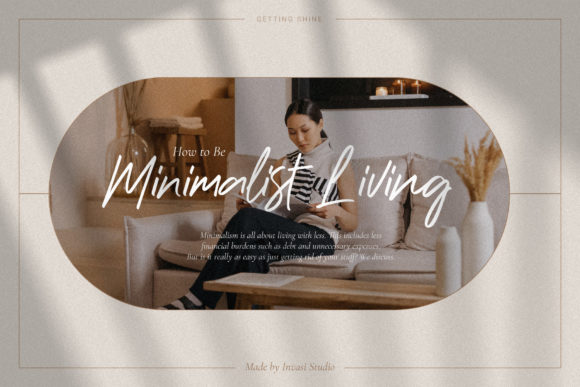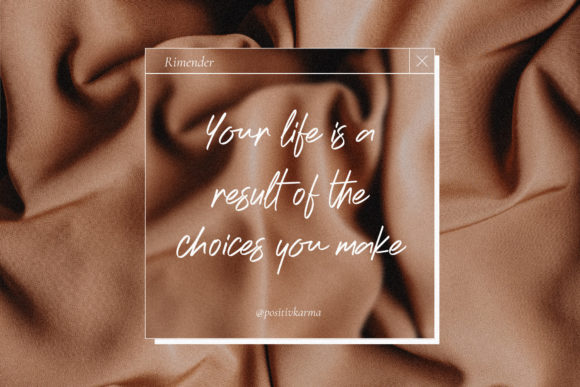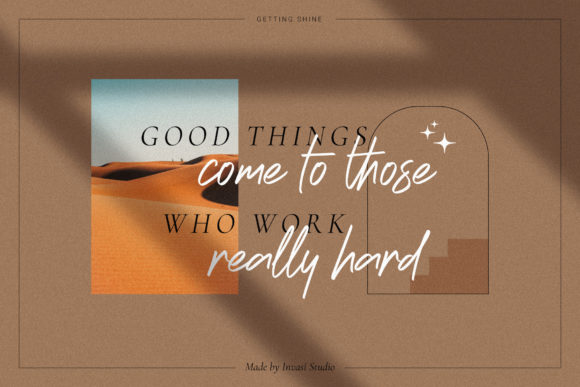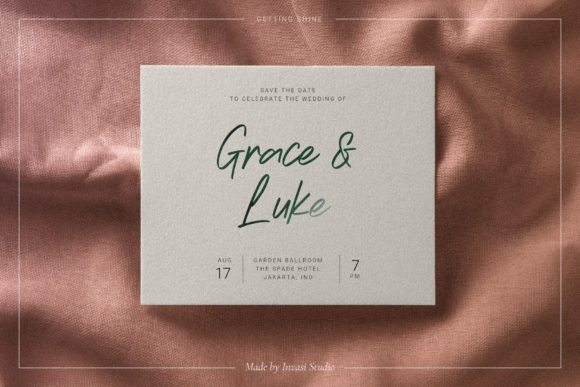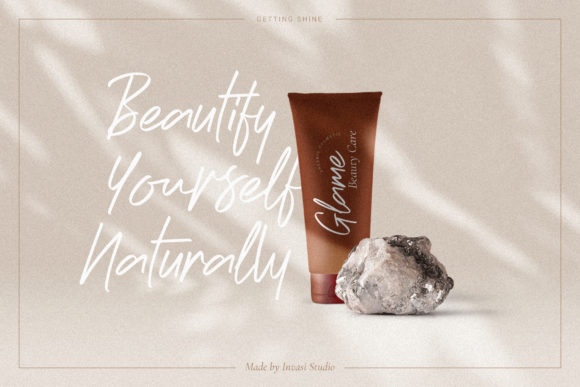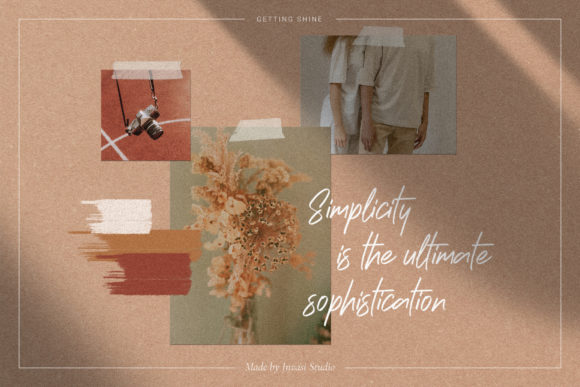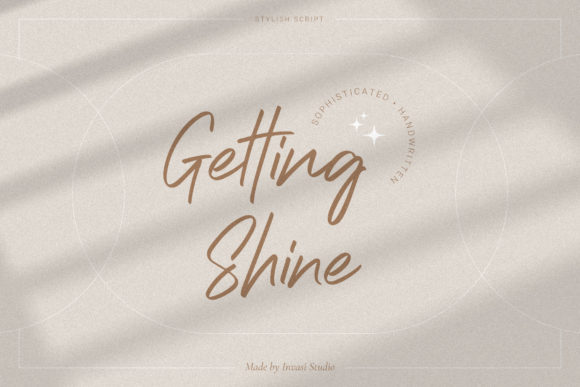
Getting Shine Font: The Ultimate Guide to Elevate Your Design
Are you on the hunt for a font that exudes elegance, sophistication, and a touch of playfulness? Look no further than the Getting Shine font! This relaxed, cursive, and adaptable handwritten font is perfect for designers and crafters looking to add a personal touch to their projects.
What is Getting Shine Font?
Getting Shine is a beautiful, one-of-a-kind font that boasts a unique blend of cursive and handwritten elements. Its relaxed and adaptable nature makes it an excellent choice for a wide range of applications, from logos and wedding invitations to headings, t-shirts, and more.
Key Features of Getting Shine Font
• Relaxed and Cursive: Getting Shine’s fluid, connected letters create a sense of movement and elegance, perfect for designs that require a touch of sophistication.
• Adaptable: This font is incredibly versatile, making it suitable for various design projects, from formal to informal.
• Handwritten: The font’s handwritten nature adds a personal touch, making it ideal for designs that require a human feel.
Uses of Getting Shine Font
The possibilities are endless when it comes to using Getting Shine font. Here are some popular applications:
• Logos: Create a lasting impression with a custom logo that showcases your brand’s personality.
• Wedding Invitations: Add a touch of romance and whimsy to your wedding stationery with Getting Shine font.
• Headings: Elevate your blog posts, articles, and website content with eye-catching headings.
• T-Shirts: Design custom apparel that stands out with Getting Shine font.
• Letterhead: Create professional-looking letterheads that reflect your brand’s identity.
• Signage: Make a statement with eye-catching signs that feature Getting Shine font.
• Labels: Design custom labels that add a personal touch to your products or packaging.
• News: Use Getting Shine font to create engaging headlines and articles.
• Posters: Create stunning posters that showcase your message in a visually appealing way.
• Badges: Design custom badges that feature Getting Shine font.
Why Choose Getting Shine Font?
With so many fonts available, why choose Getting Shine? Here are a few compelling reasons:
• Unique: Getting Shine font is one-of-a-kind, ensuring your designs stand out from the crowd.
• Versatile: This font can be used for a wide range of applications, making it a valuable addition to your font library.
• Elegant: Getting Shine font exudes elegance and sophistication, perfect for designs that require a touch of refinement.
Tips for Using Getting Shine Font
To get the most out of Getting Shine font, follow these tips:
• Experiment with Sizes: Getting Shine font looks great in various sizes, from large headings to smaller body text.
• Pair with Other Fonts: Combine Getting Shine font with other fonts to create visually appealing contrast.
• Use for Display Text: Getting Shine font is perfect for display text, such as headings, titles, and captions.
Getting Shine font is an exceptional addition to any designer’s or crafter’s toolkit. Its unique blend of cursive and handwritten elements, combined with its adaptability and elegance, make it perfect for a wide range of applications. Whether you’re designing logos, wedding invitations, or signage, Getting Shine font is sure to elevate your designs and leave a lasting impression.